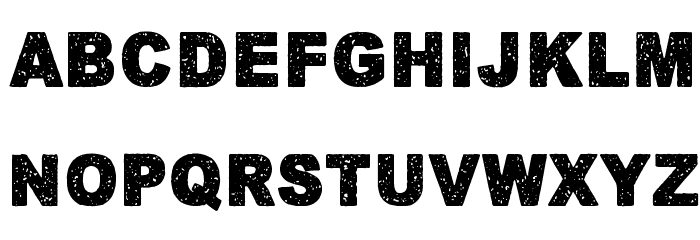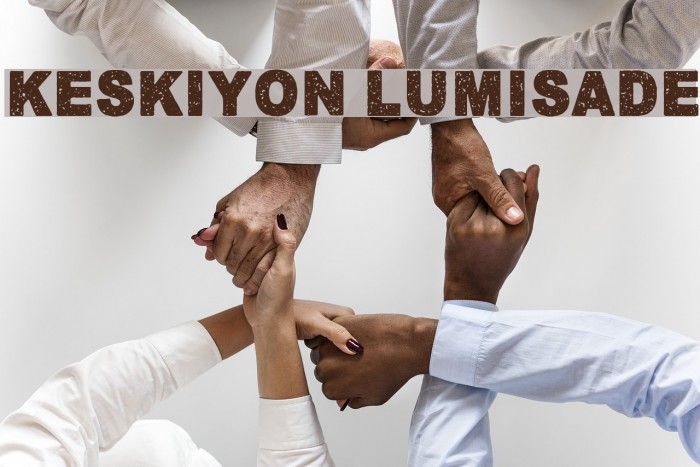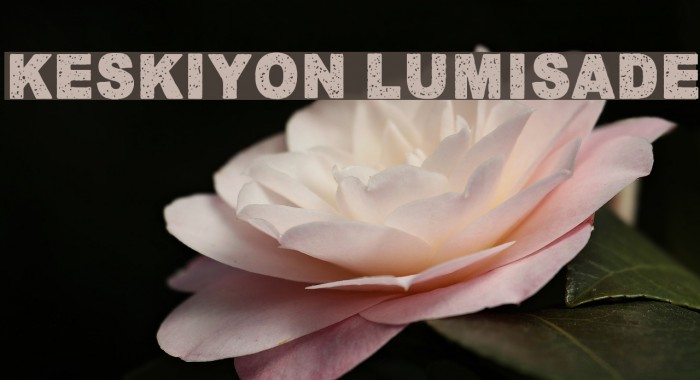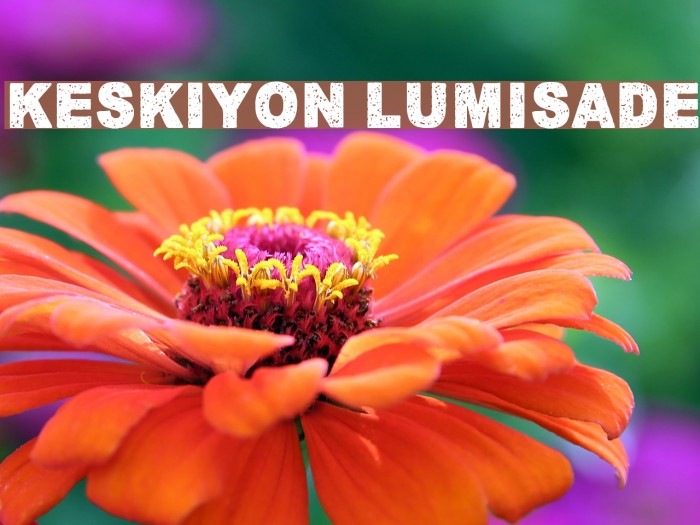
Keskiyon Lumisade Font
This font features a bold, textured design with a distressed, speckled pattern that gives it a unique, weathered appearance. The characters are uppercase and have a strong, impactful presence, making them ideal for attention-grabbing headlines or titles. The texture adds a layer of depth and interest, reminiscent of vintage or retro styles. The numbers and special characters follow the same design, ensuring consistency across all elements. This font's distinctive style makes it suitable for projects that require a bold statement or a touch of nostalgia.
A bold, textured font with a distressed, vintage appearance.
- Proposed Projects: Ideal for posters, album covers, branding, and any design needing a bold, vintage touch.
- Overall Style: Vintage